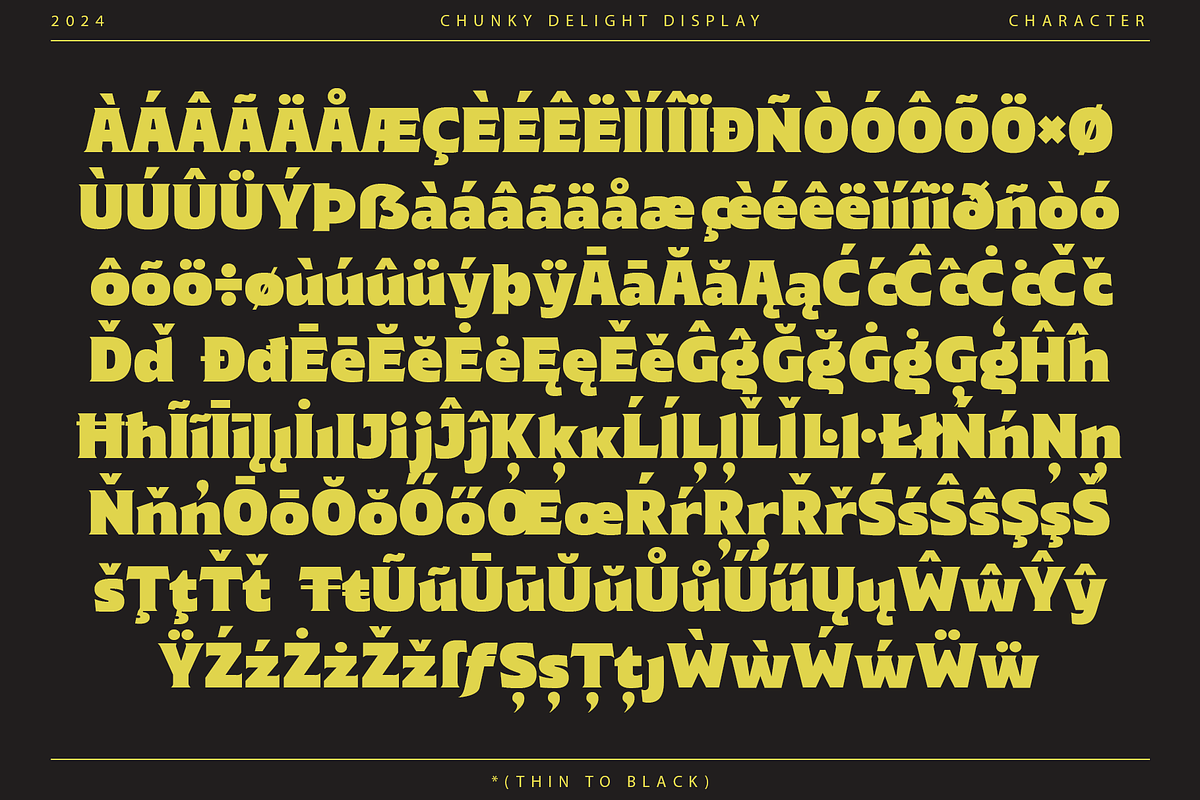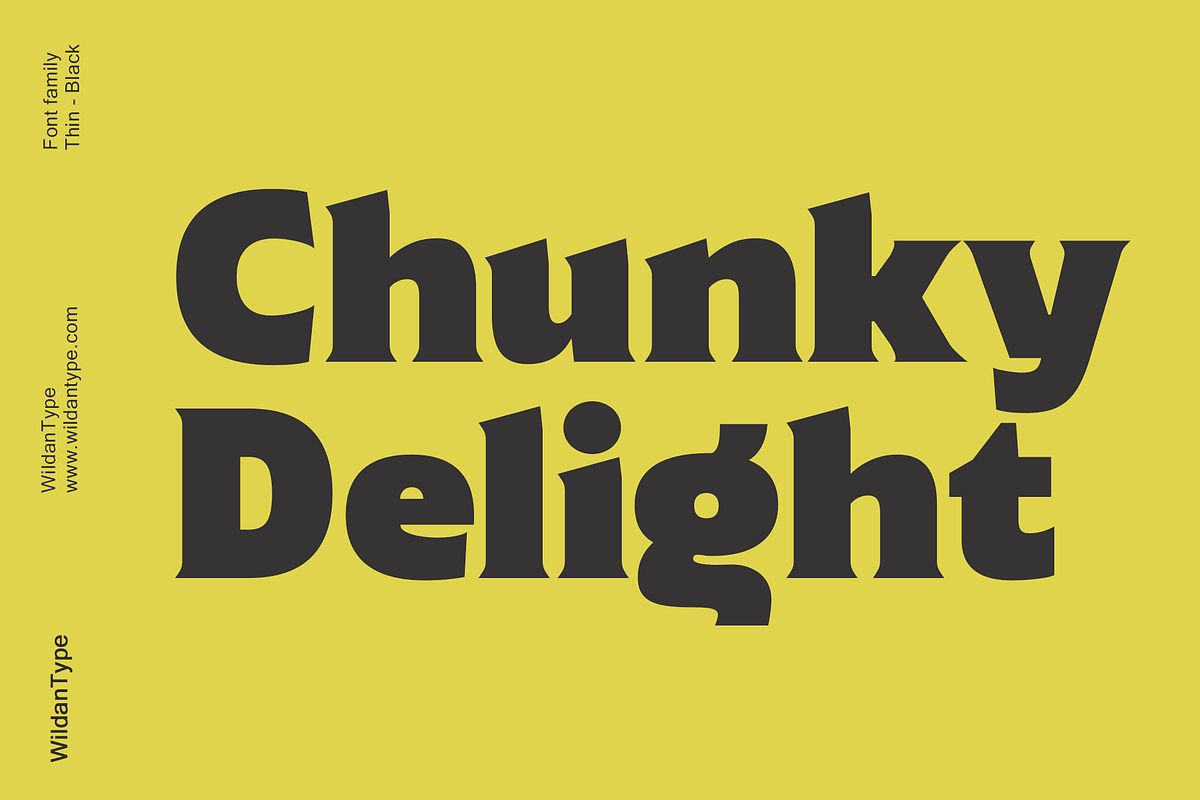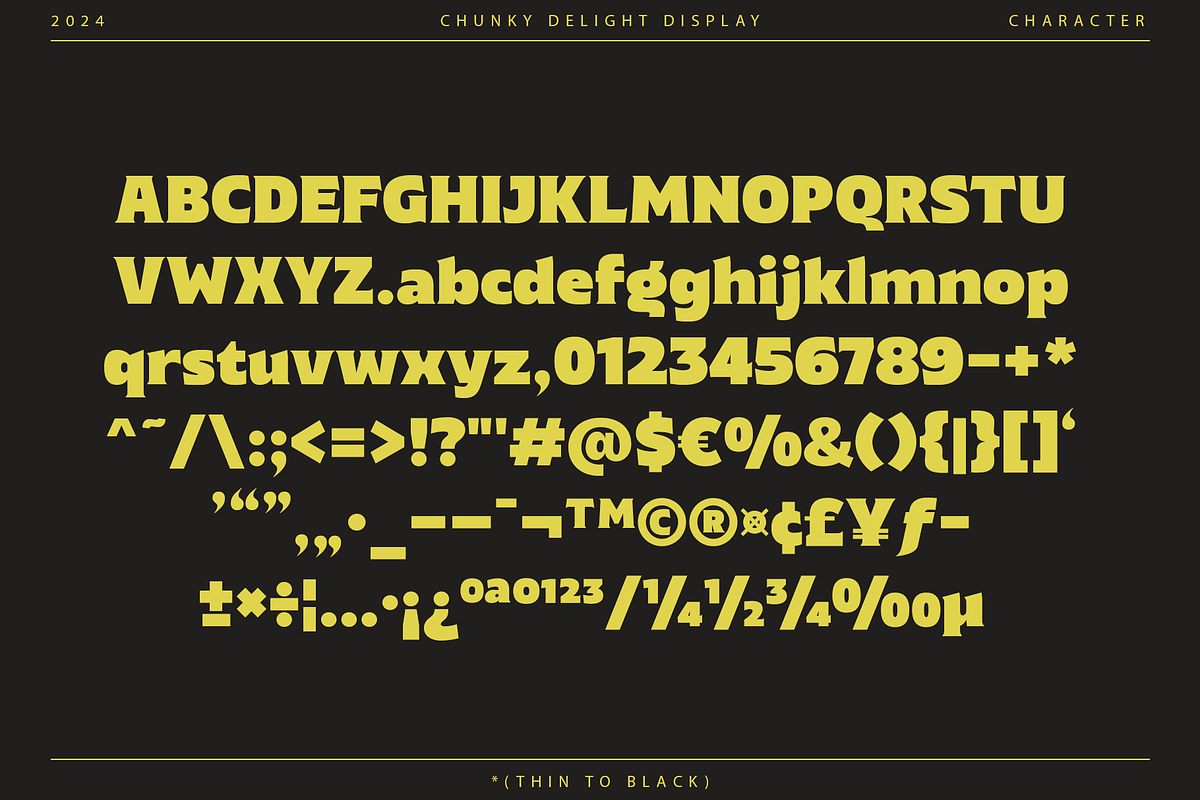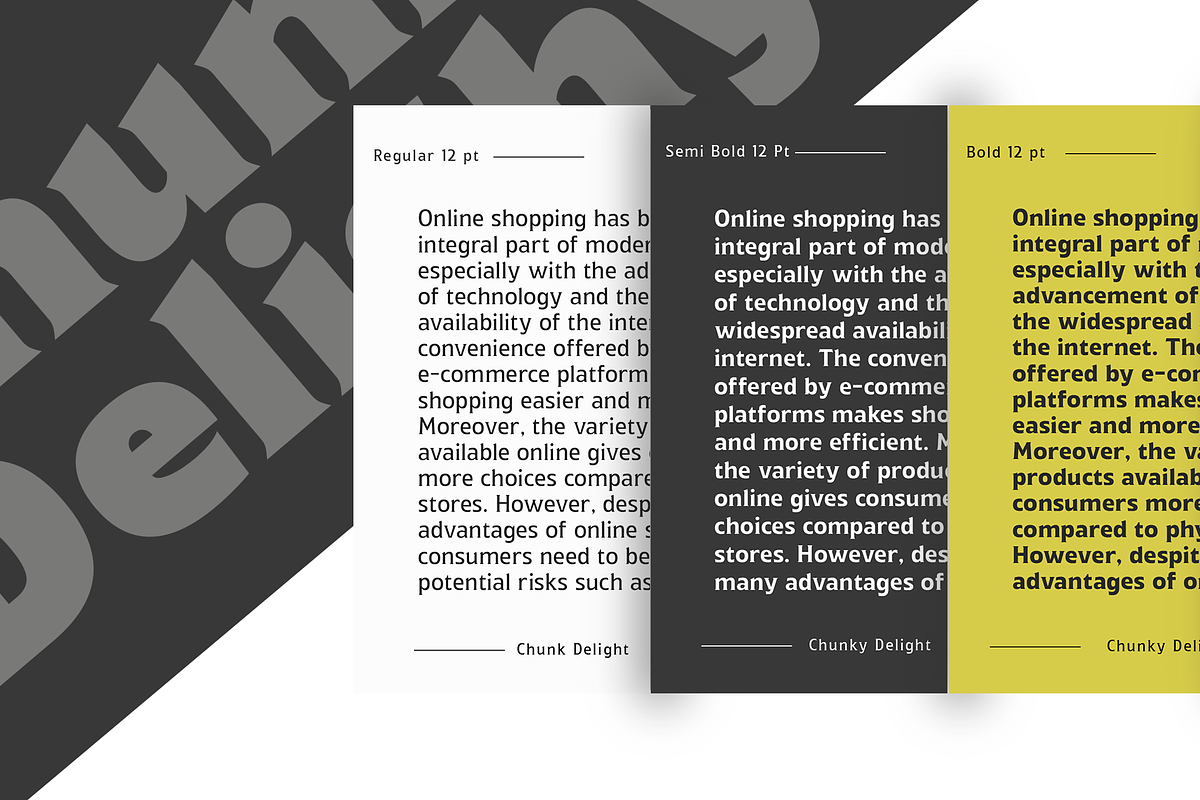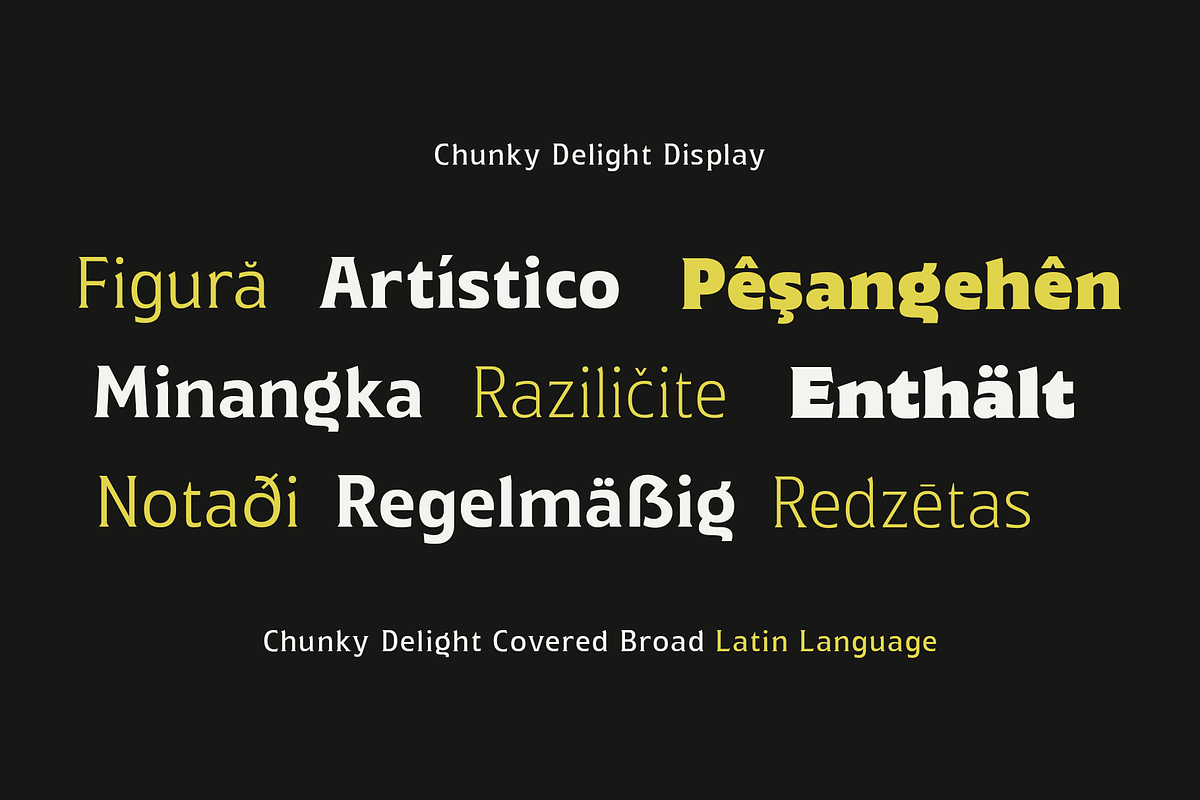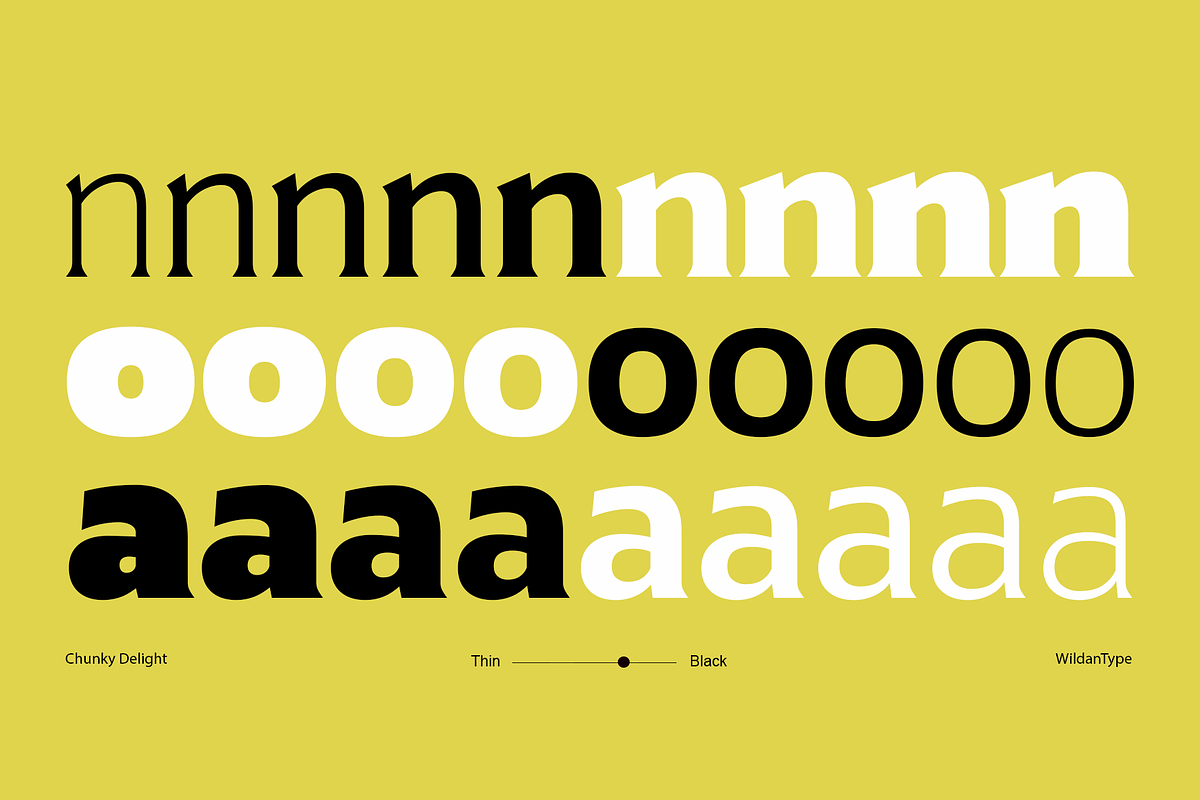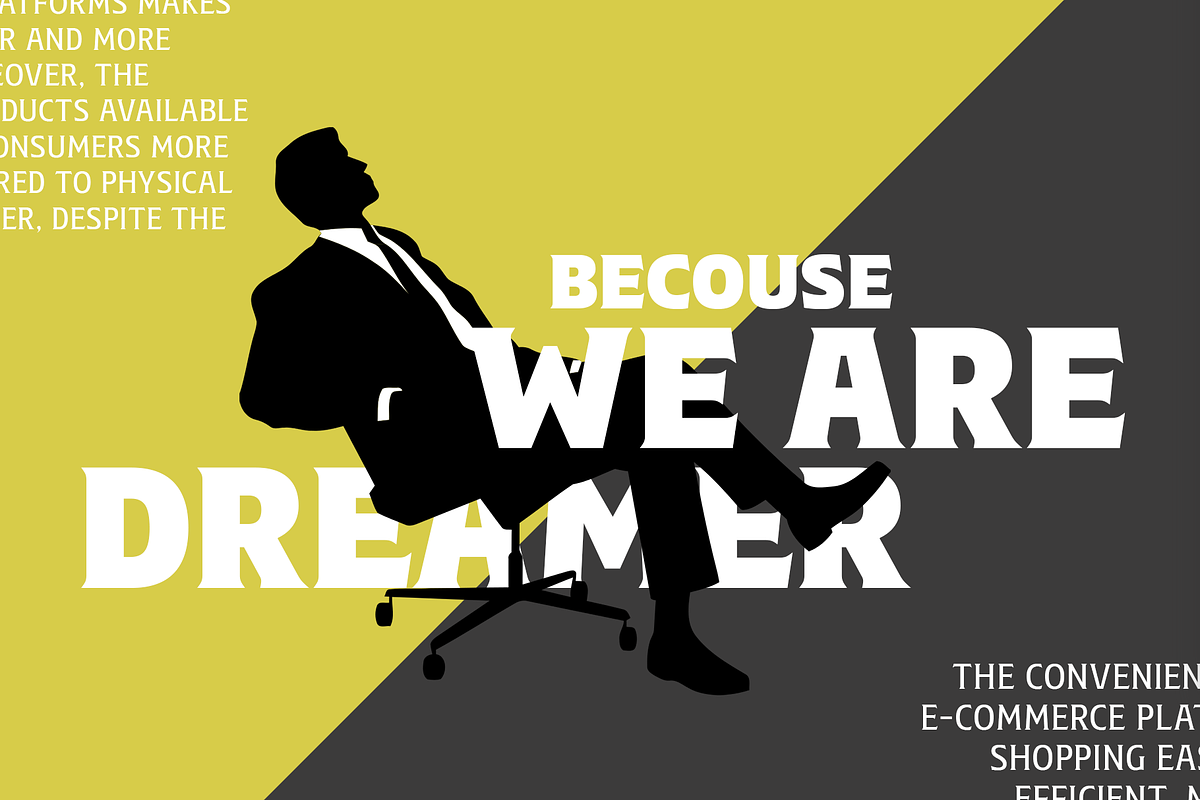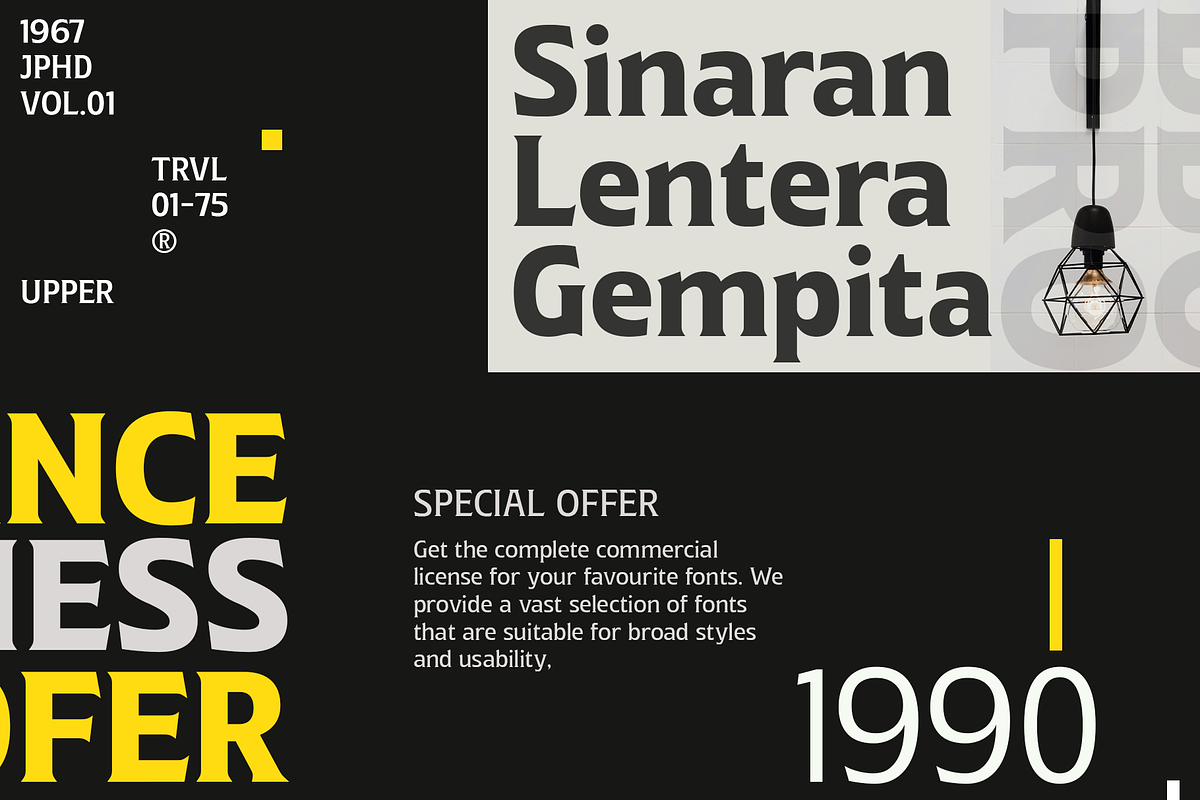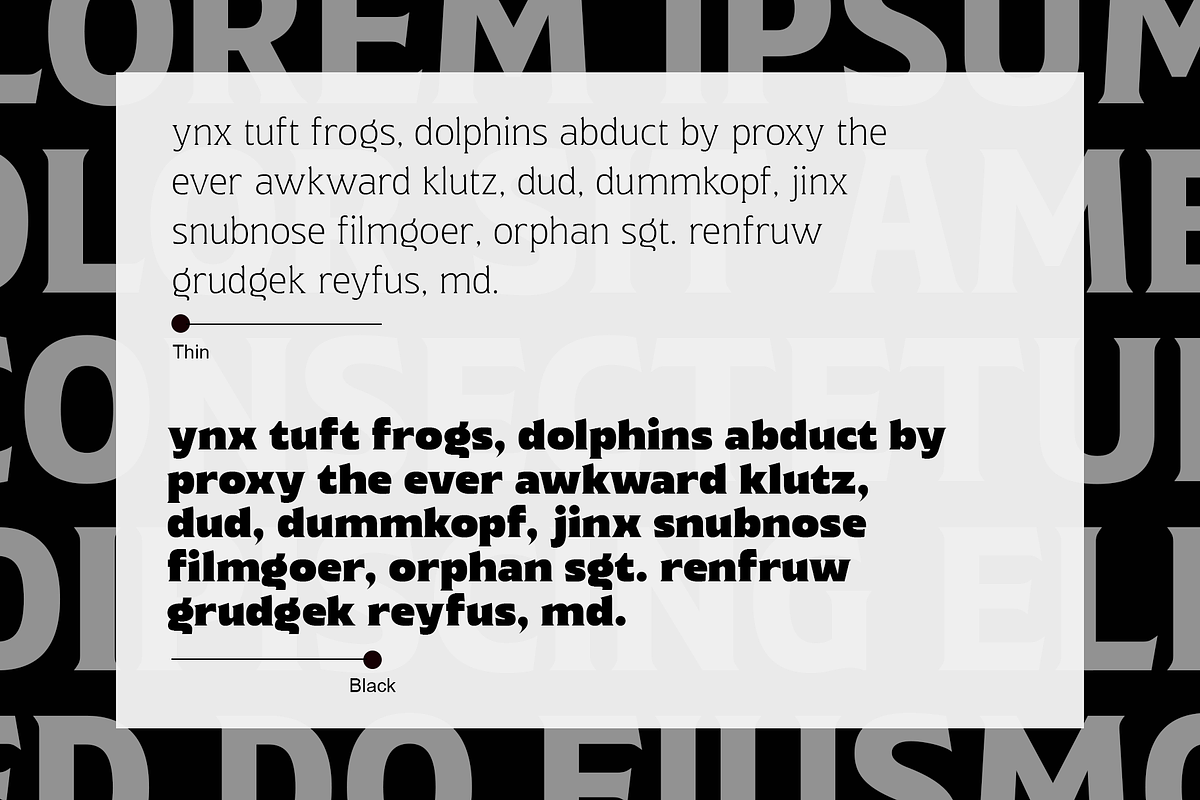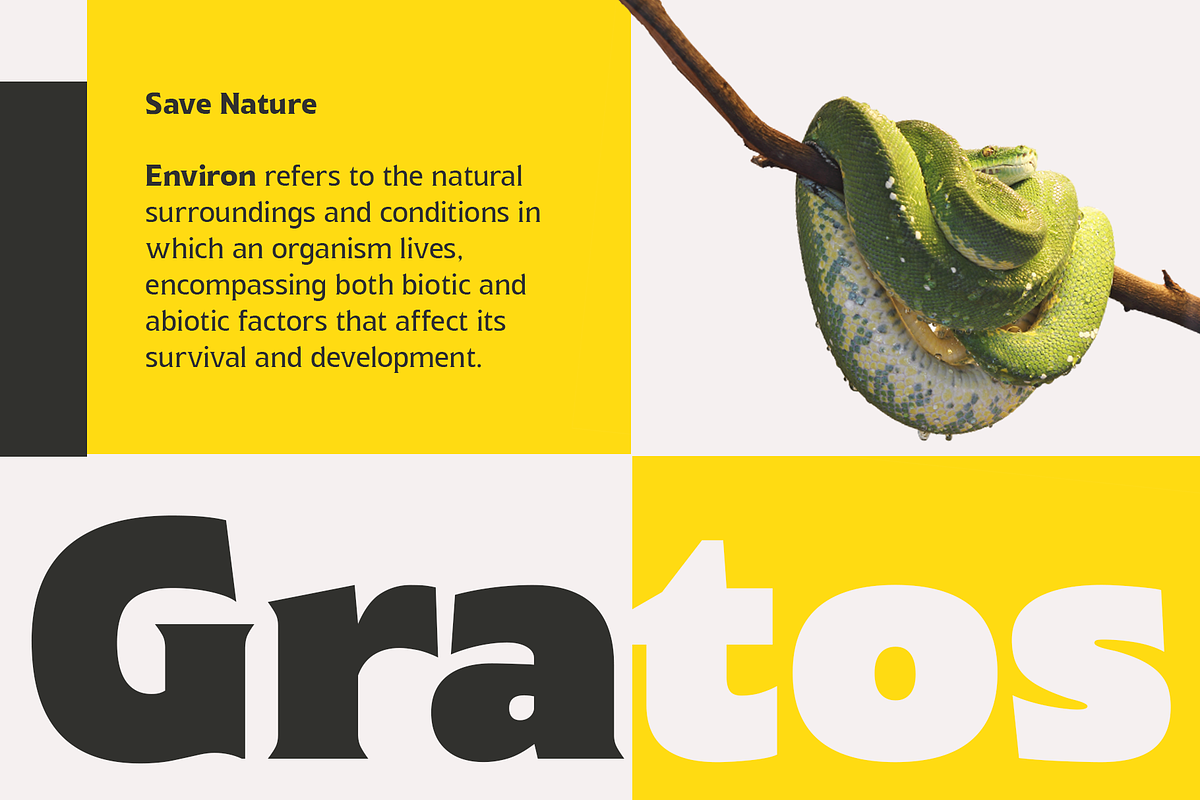
Chunky Delight
Chunky Delight is bold, heavy weight and semi rounded edges, giving it a playful and slightly retro appearance. The thick, robust strokes make it highly legible and suitable for attention-grabbing headlines, posters, and branding. Its whimsical and chunky design exudes a sense of fun and friendliness, making it perfect for projects that aim to convey a warm and approachable vibe.